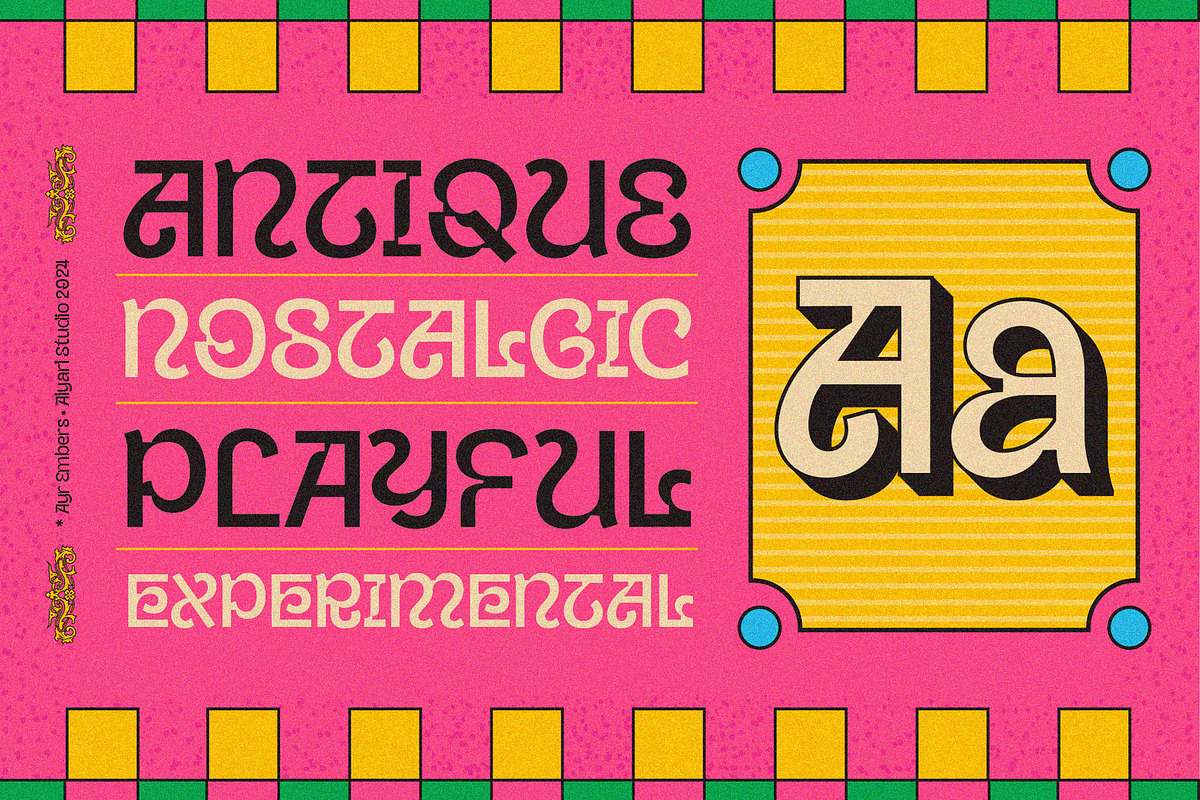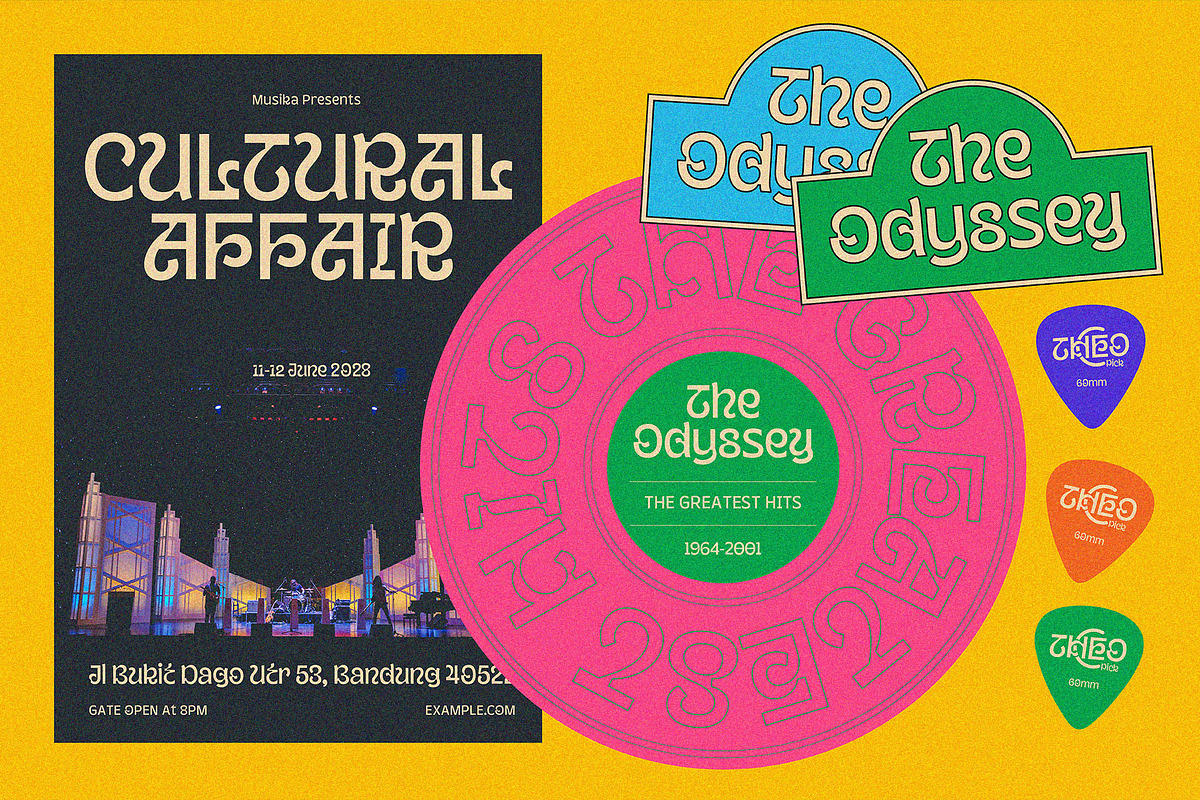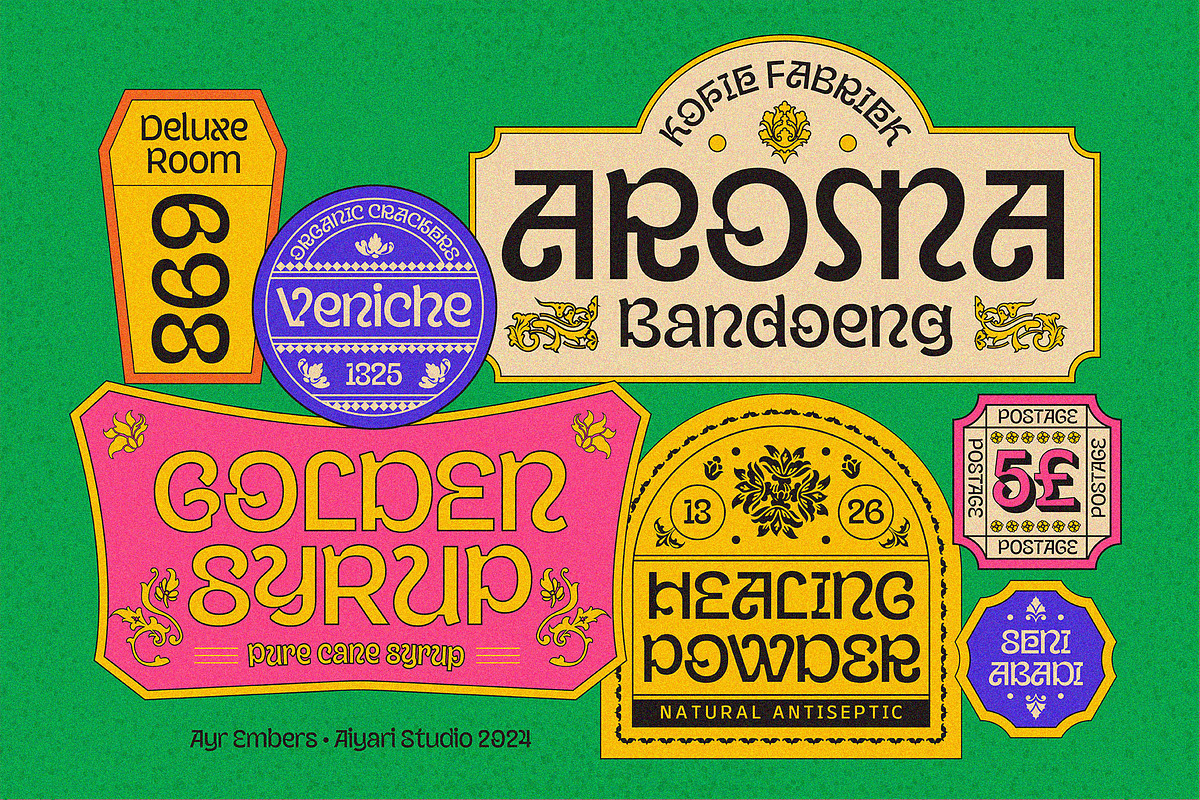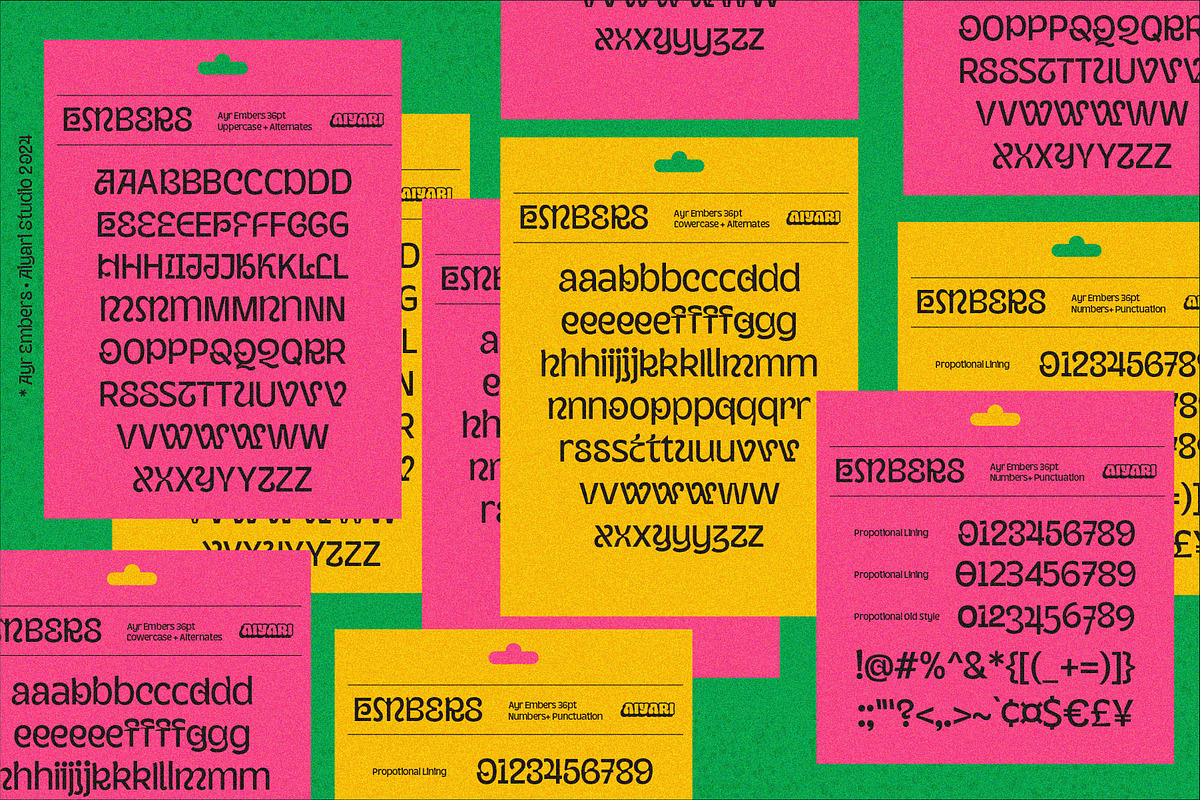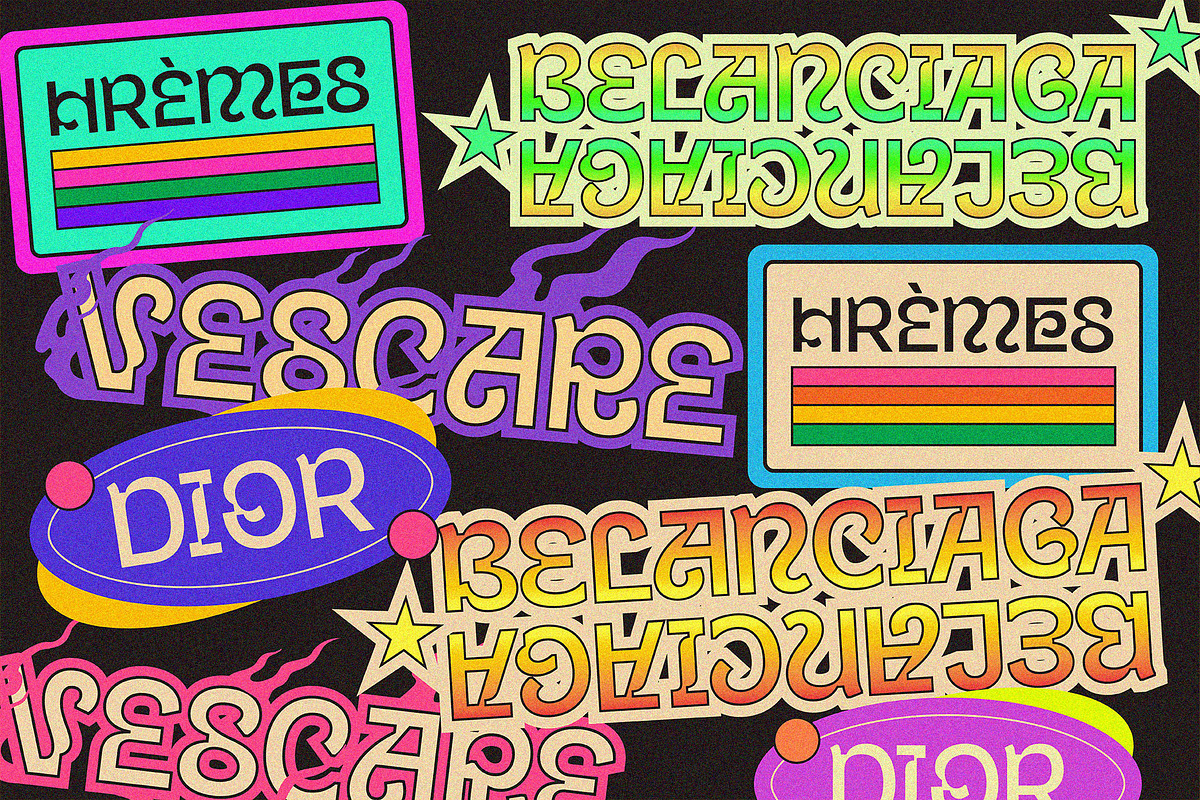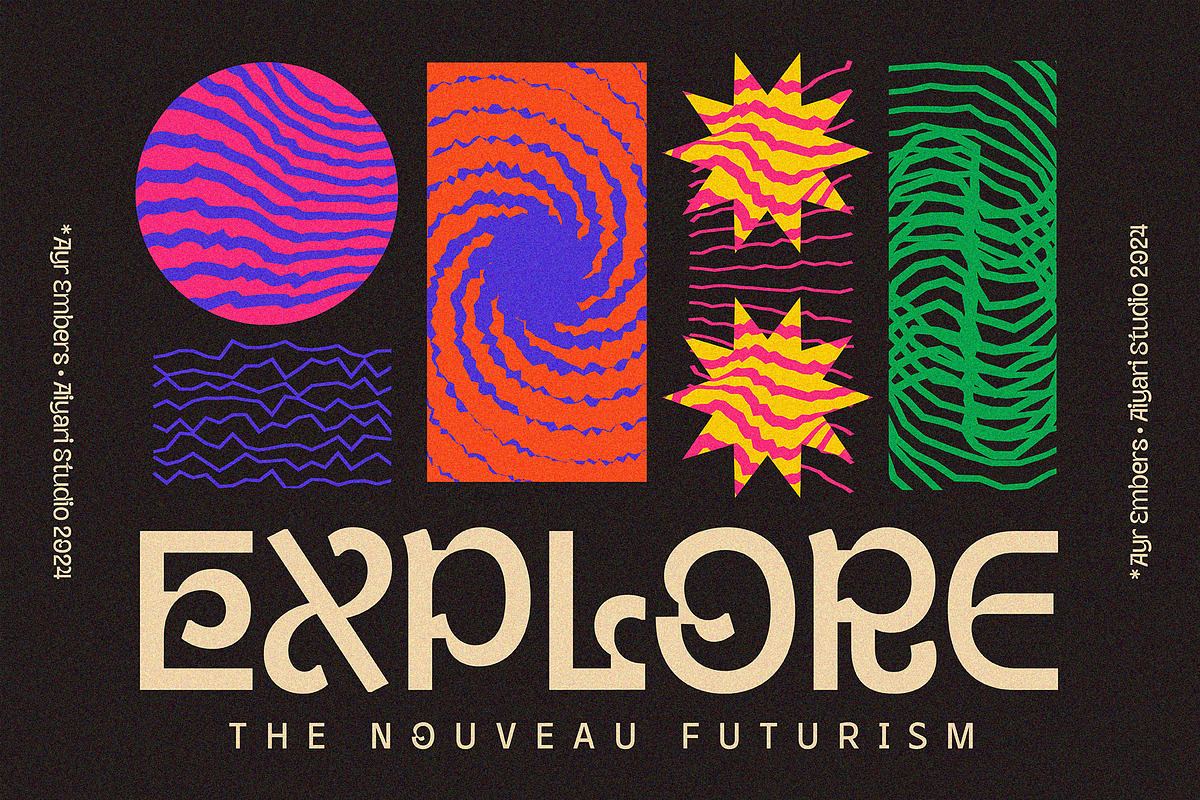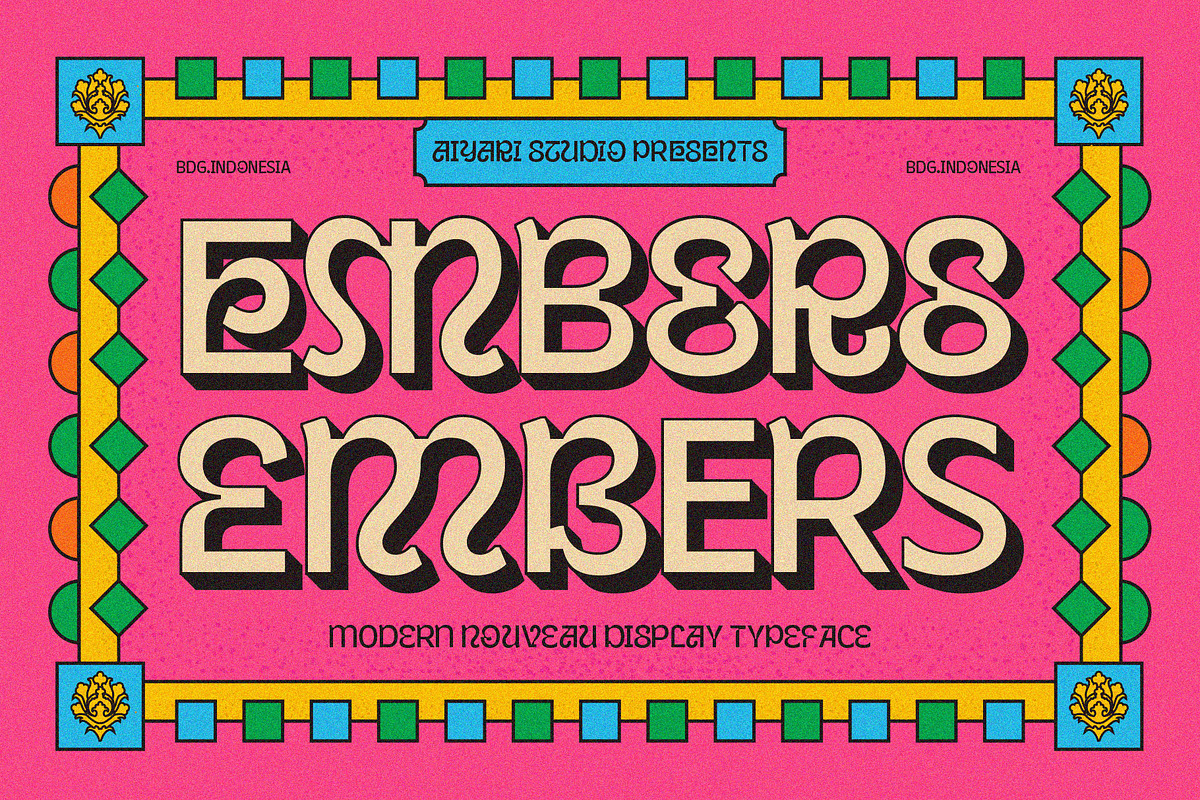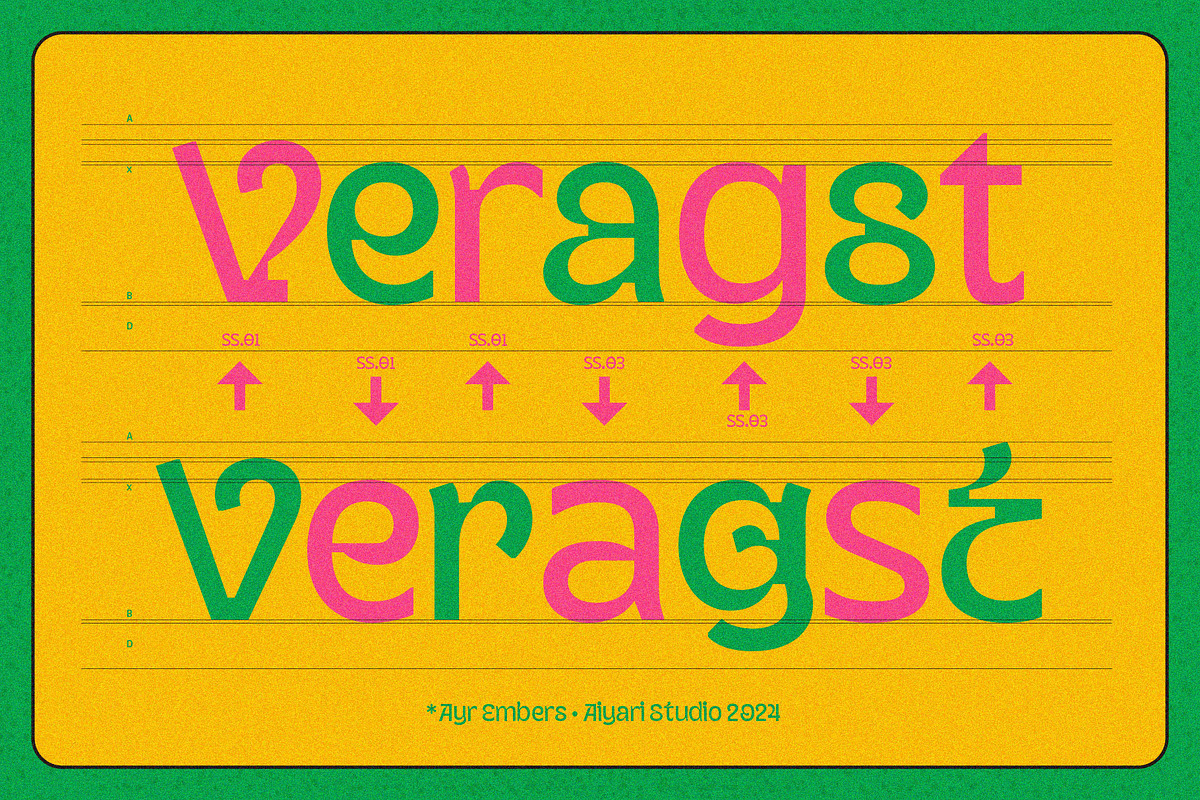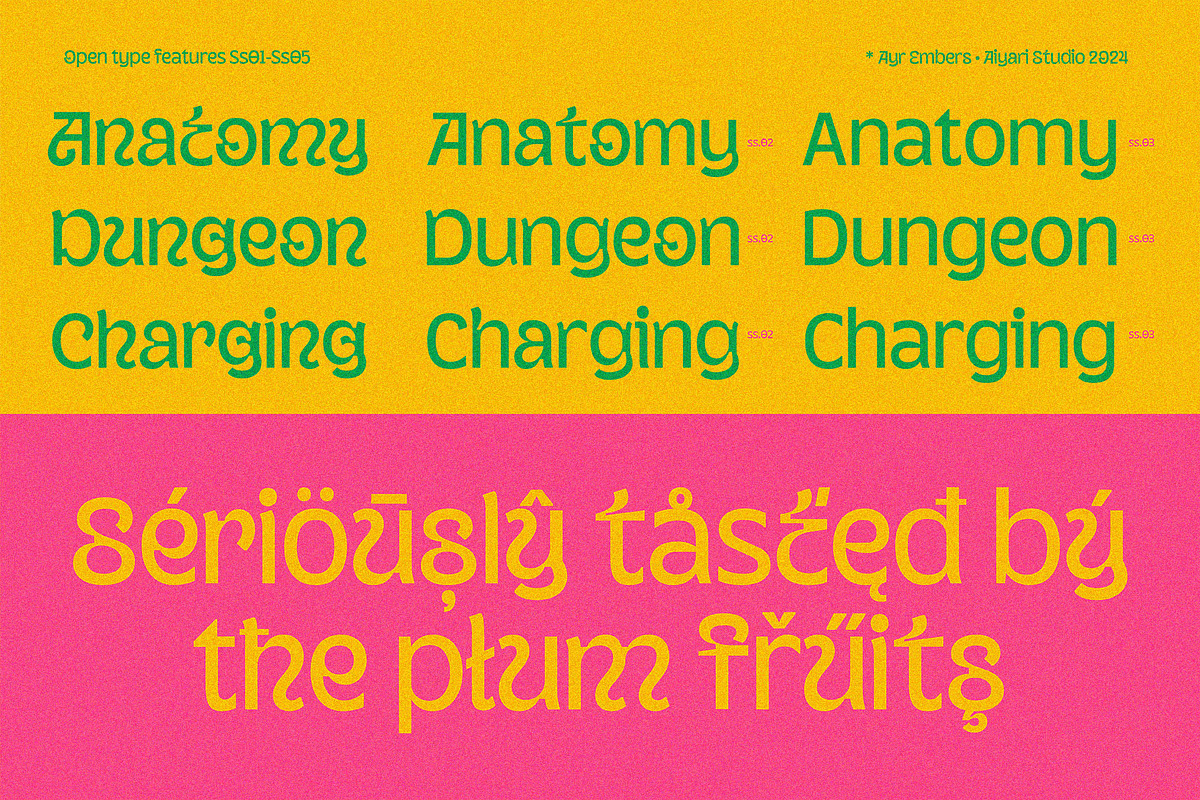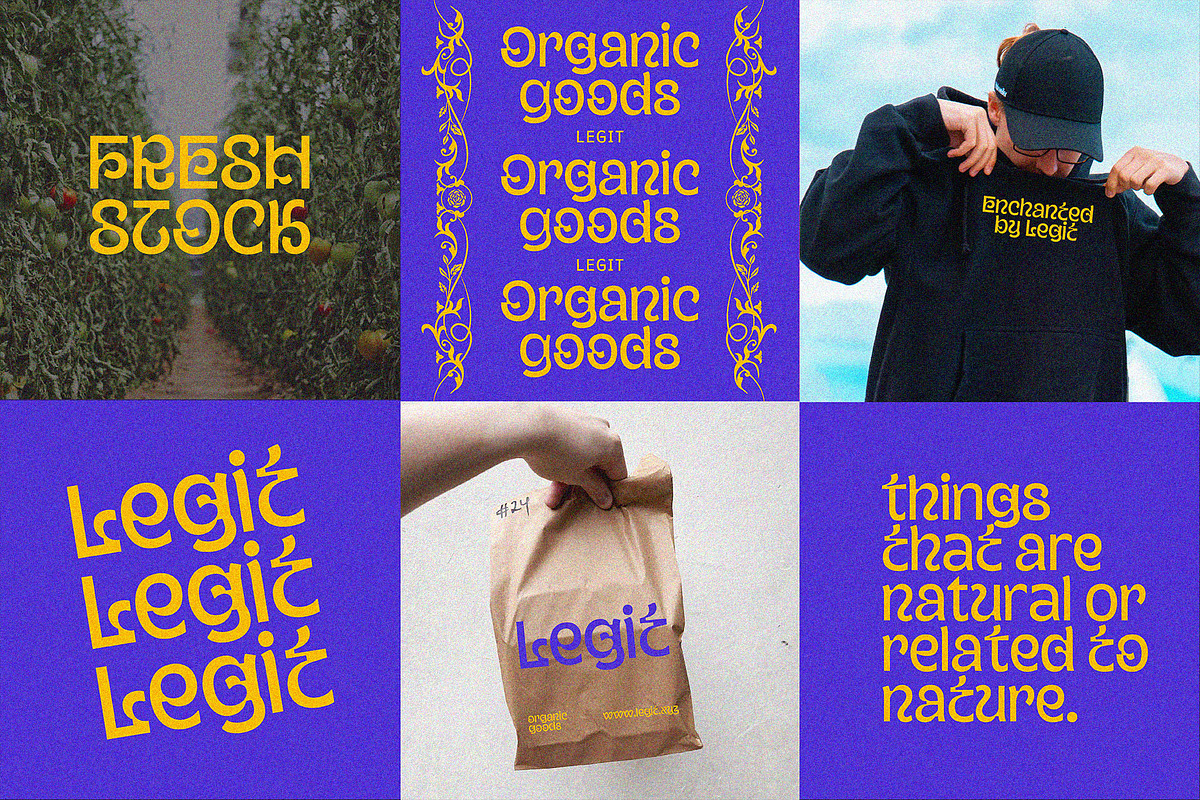
Embers Modern Display
Introducing Embers
The typeface is heavily influenced by art nouveau design and combined with a modern and experimental design approach. With an extra big inktrap on horizontal and vertical forms, Embers capture vintage nuance with a modern twist. This typeface is perfect for headlines in a large size. Embers comes with a Stylistic Alternate, a ligature, and a Stylistic Set 01-10.
Ayr Embers is best used for headings, logotype, quotes, apparel design, invitation, poster, flyers, greeting cards, packaging, book cover, printed quotes, cover album, movie, & etc